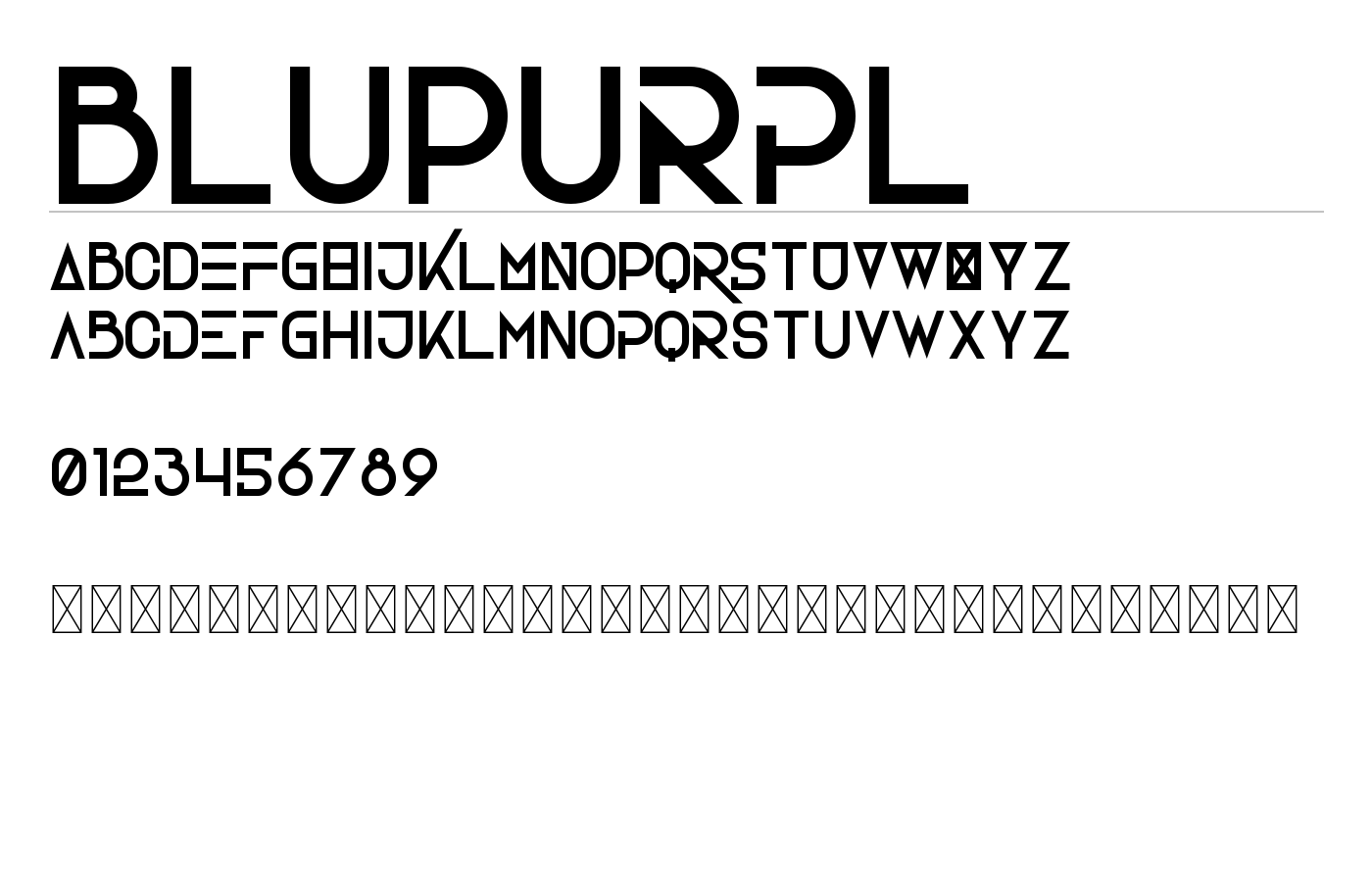
BluPurpl is a bold, modern geometric sans serif font with a distinct futuristic vibe. Its sharp angles, clean lines, and stylized letterforms make it perfect for technology, fashion, and forward-thinking brands, especially in logos and headlines where a strong, avant-garde impression is desired. The font’s unique design adds a creative, edgy touch while maintaining readability and impact.
BluPurpl Font
About BluPurpl Font